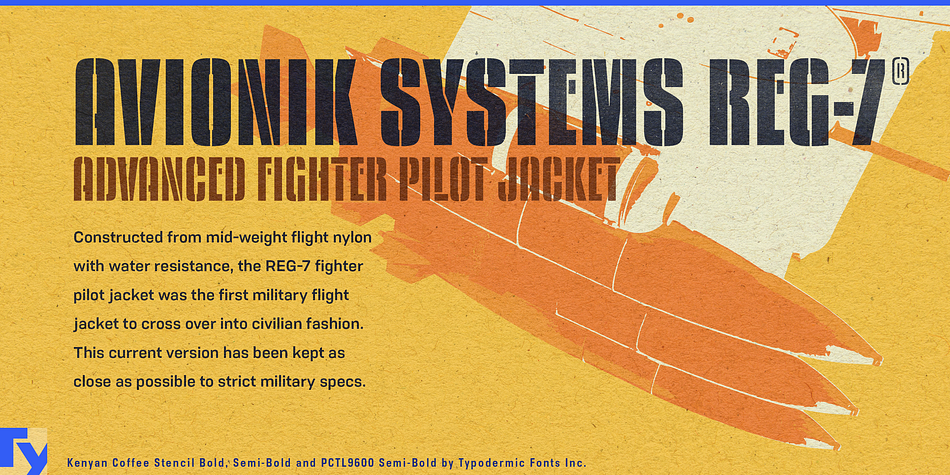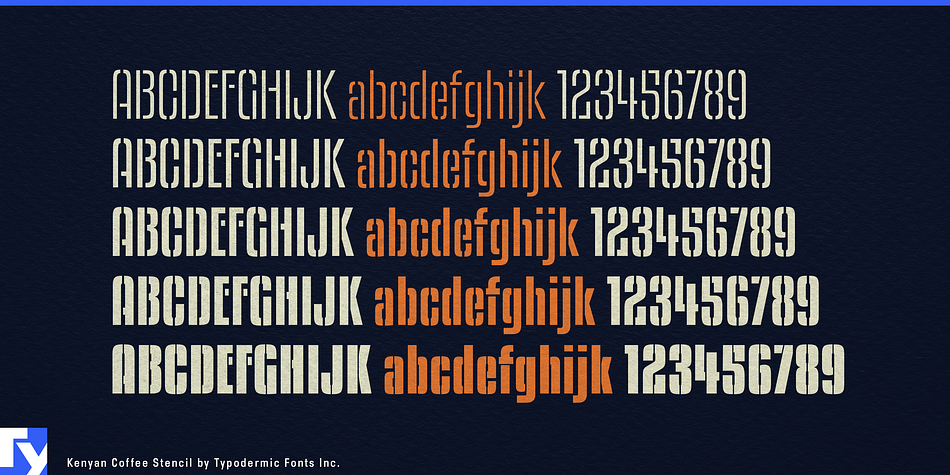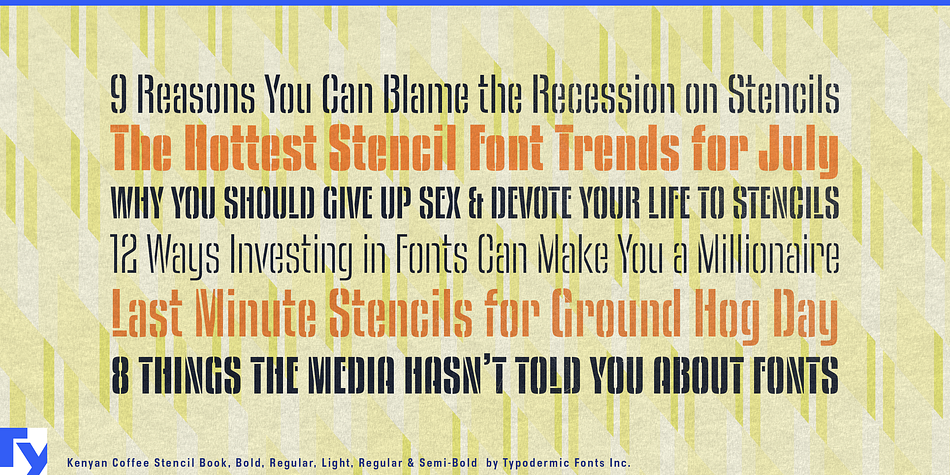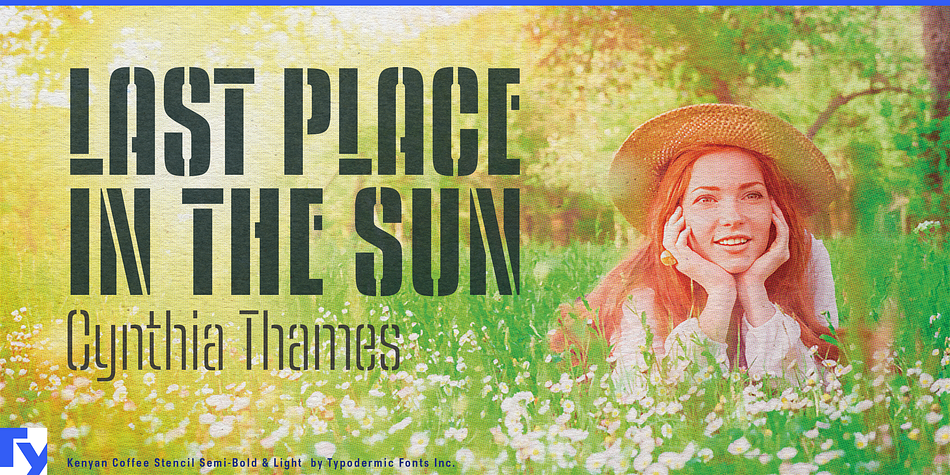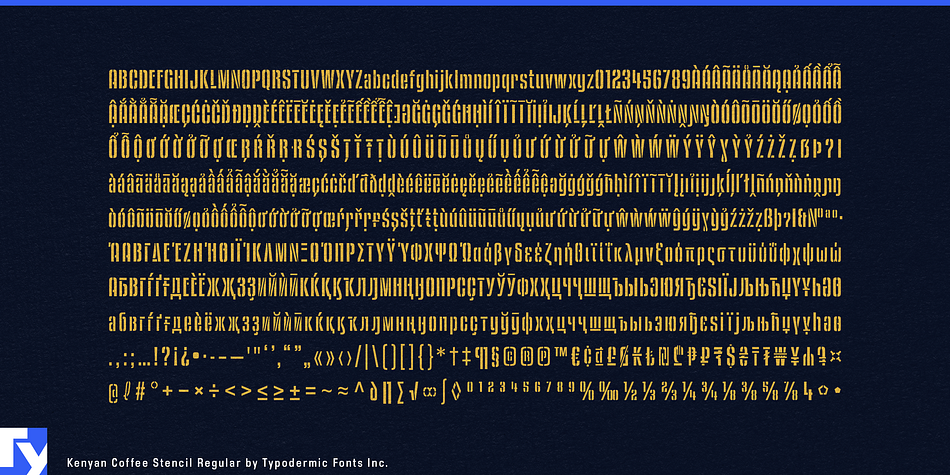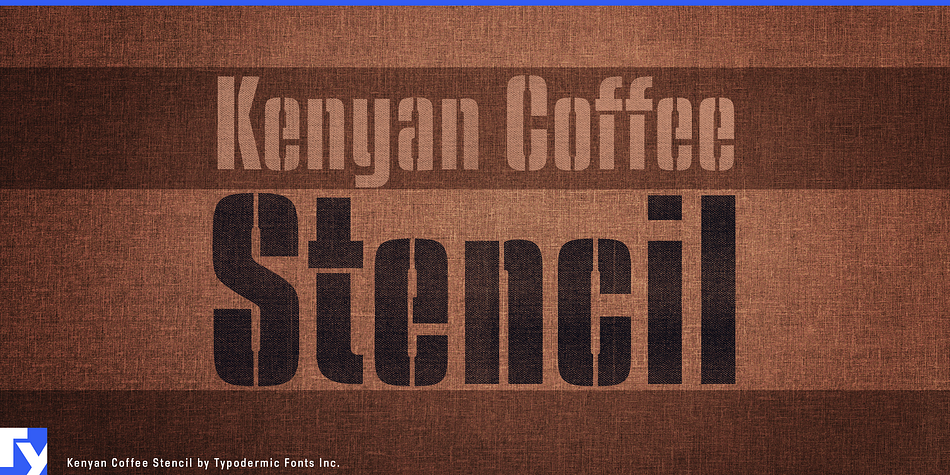
Designed by Ray Larabie, Kenyan Coffee Stencil is a stencil font family. This typeface has five styles and was published by Typodermic Fonts Inc.
Kenyan Coffee Stencil a headliner based on the late 1990’s typeface by the same name. Kenyan Coffee has a hybrid industrial/deco style which is perfectly suited to stencilization. The commercial use desktop license for Semi-Bold is free. Almost all current Latin based languages are supported, including Vietnamese, Cyrillic languages and Greek.